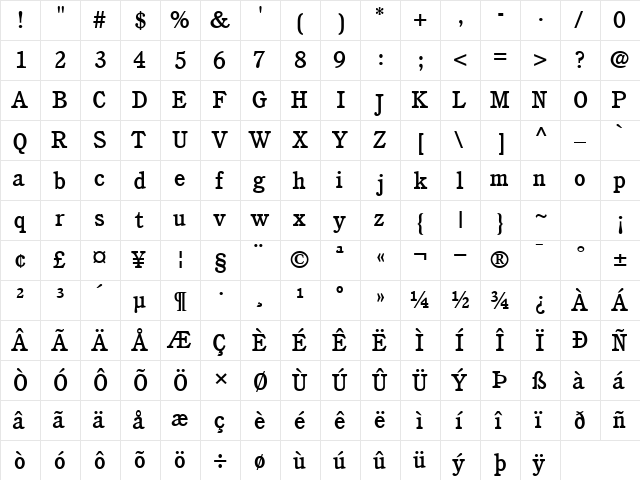
PerspectiveMediumSSK Regular
Design Context for PerspectiveMediumSSK Typeface
PerspectiveMediumSSK takes a measured approach to typography — its balanced proportions and neutral character make it a reliable workhorse for both digital and print work.